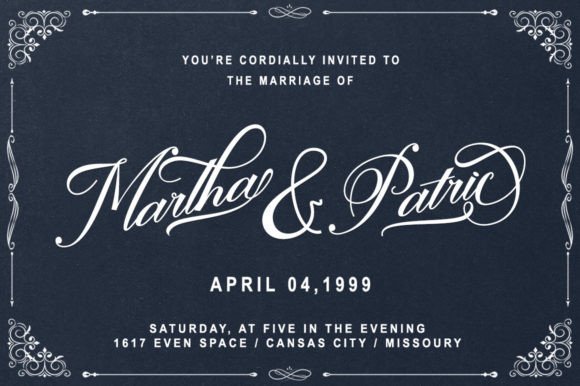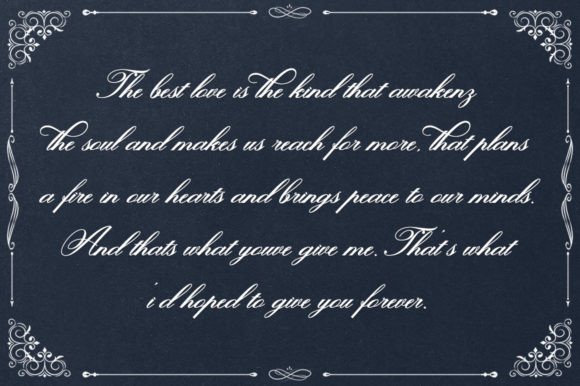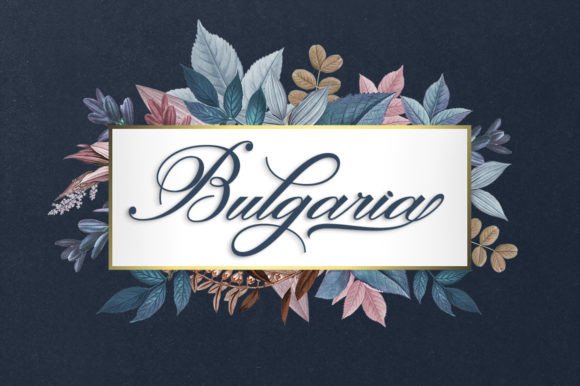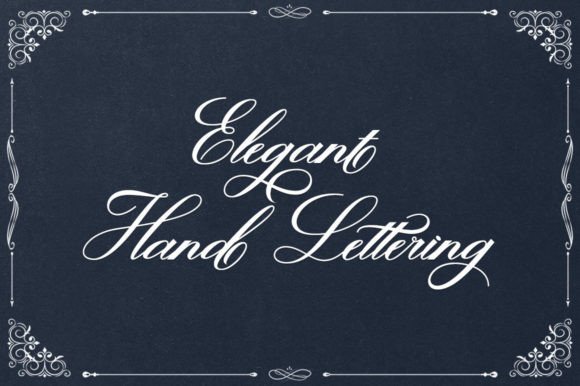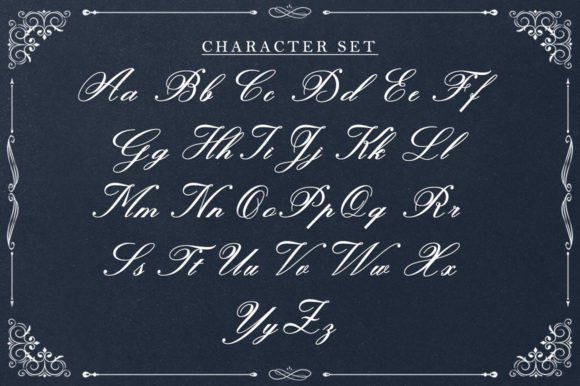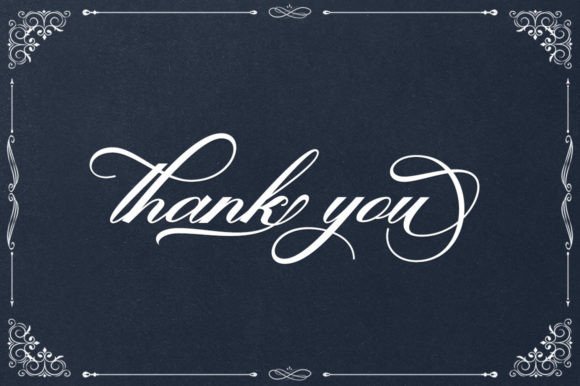
The Perfect Script: Unlocking the Potential of Bontang Font
You’ve finally landed on the perfect idea for your next design project. The concept is fresh, the message is clear, and the visuals are popping – but something’s still missing. That’s when you remember the power of typography. A well-chosen font can elevate your design from good to great, and that’s exactly where the Bontang Font comes in.
This dazzling script font is carefully crafted to bring a touch of elegance and sophistication to any project. Whether you’re working on a logo, a brochure, or a social media campaign, the Bontang Font has the potential to take your design to the next level. Its intricate details and beautiful curves make it a valuable asset to any designer’s font library.
With the Bontang Font, you’ll be able to add a unique touch to your creations, setting them apart from the crowd and leaving a lasting impression on your audience. So why settle for a generic font when you can have a font that truly makes a statement?
Bontang Font Key Features
- Unique Characteristics: Bontang Font features a unique blend of modern and traditional design elements, with intricate details and ornate flourishes.
Bontang Font Review
I recently had the chance to work with the Bontang Font, and I must say it’s a unique addition to any design project. ✨ One of the things that stands out is its bold and playful character set. The font’s curves and lines work well together to create a visually appealing effect, making it perfect for titles and headings.
Another advantage of the Bontang Font is its versatility. ✨ It comes in a range of weights, from light to bold, allowing designers to create a wide variety of styles and moods. Additionally, the font is highly customizable, making it easy to adjust the spacing, kerning, and other properties to suit the needs of the project.
However, there are a few limitations to the Bontang Font that designers should be aware of. ⚠️ Firstly, the font’s character set is not as extensive as some other fonts on the market, which may make it less suitable for projects that require a wide range of special characters or languages.
- Limited character set
- Not ideal for projects requiring a high degree of technical precision
Overall, the Bontang Font is a fun and creative addition to any design project. While it may have its limitations, its bold and playful character set makes it perfect for titles, headings, and other display elements. With a little creativity and experimentation, designers can unlock the full potential of this unique font.
Tips for Getting the Most Out of Bontang Font
1. Use the Bontang font in combination with other fonts to create a unique typography style.
2. Experiment with different font sizes and styles to create visual interest.
3. Use the Bontang font to create custom graphics and illustrations.
The Bontang font is ideal for:
- Creative projects, such as graphic design and digital art
- Branding and marketing materials, such as logos and brochures
- Editorial and publishing projects, such as book covers and magazine layouts